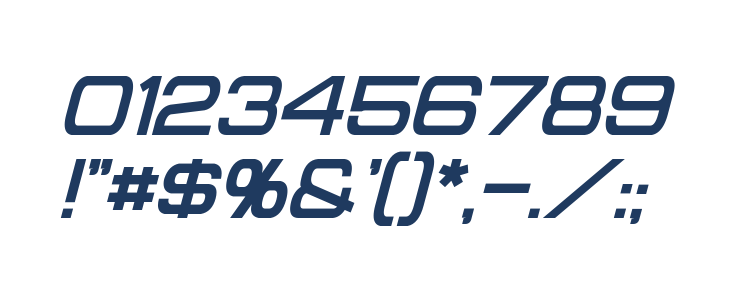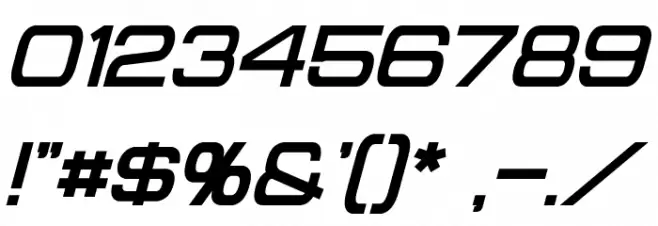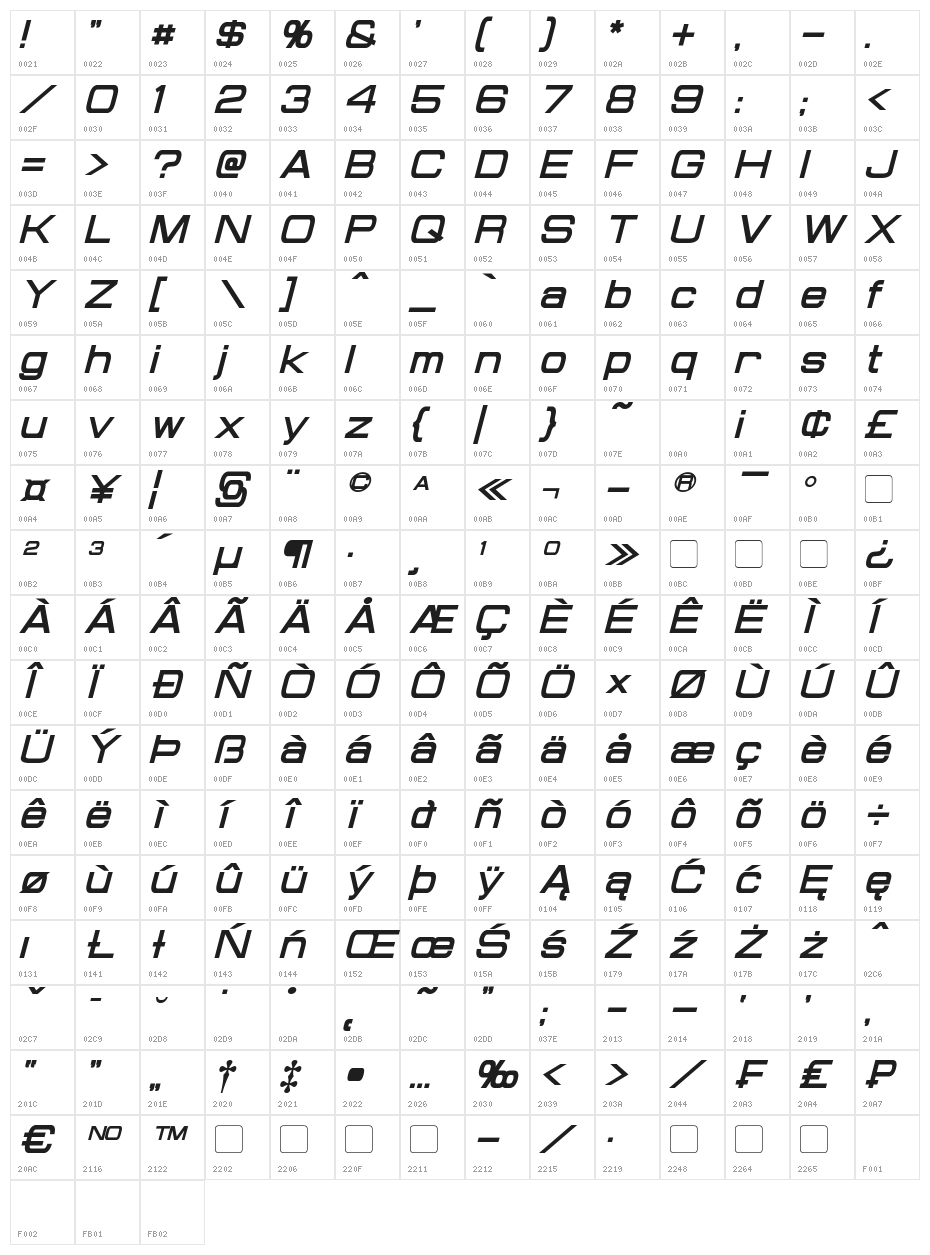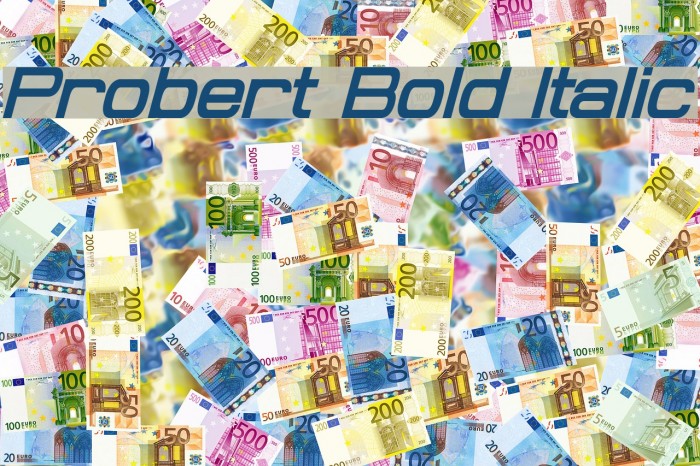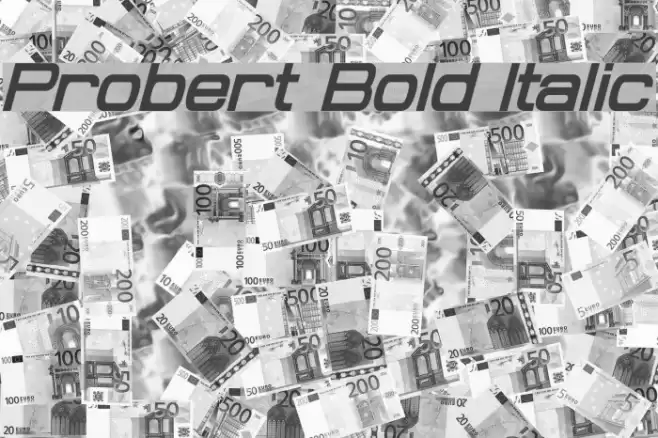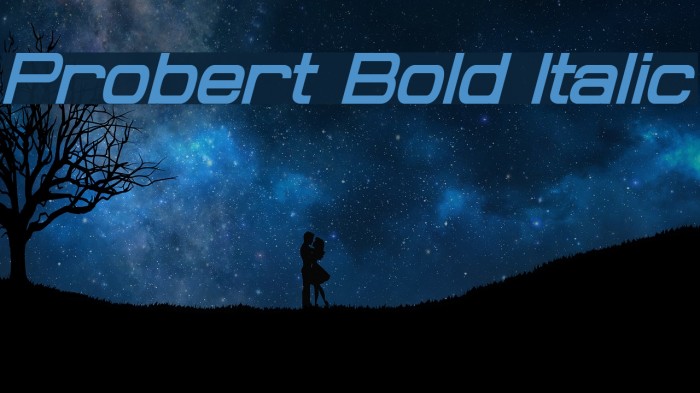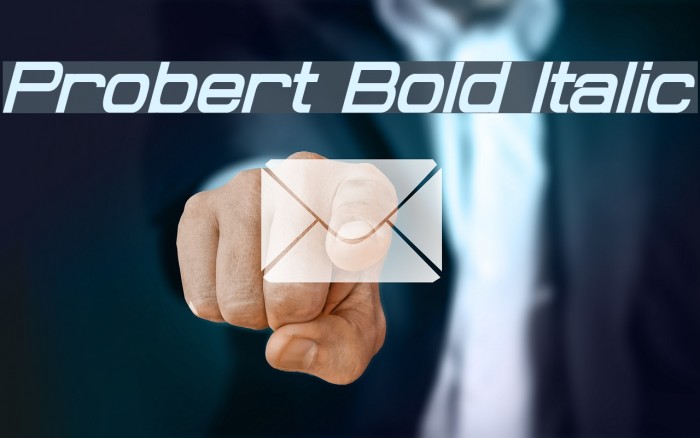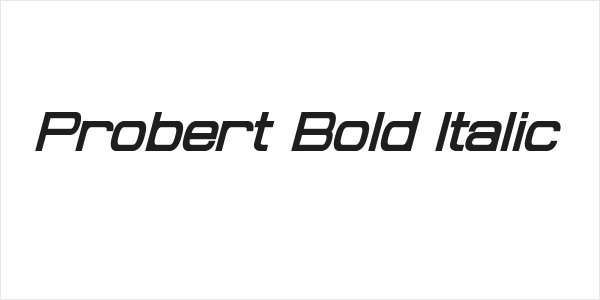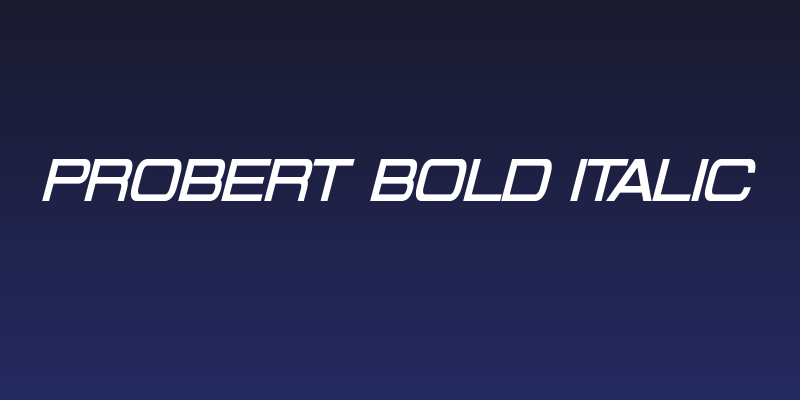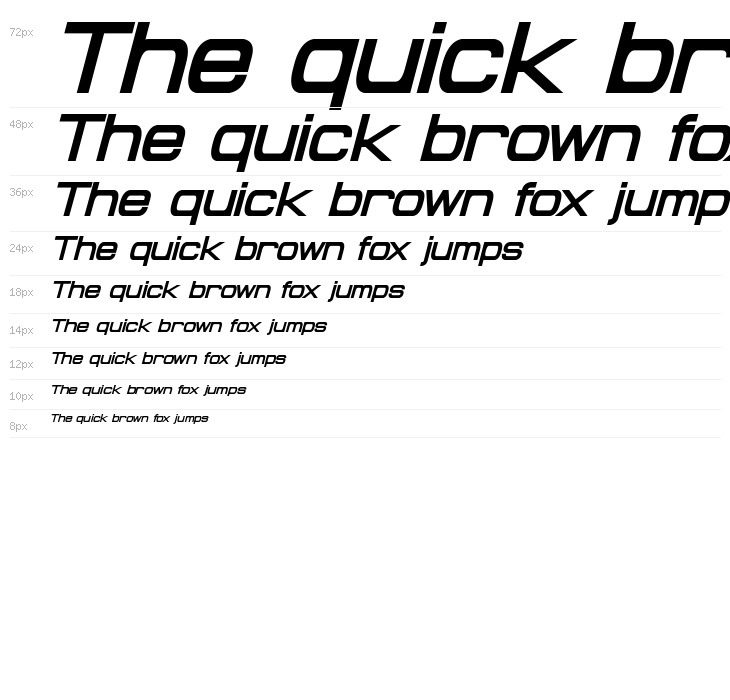
Probert Bold Italic Font
Probert Bold Italic Description
This font exhibits a sleek and modern design with a distinct italic slant, giving it a dynamic and forward-moving appearance. The characters are bold, providing a strong visual impact, and the overall style is clean and streamlined. The uppercase and lowercase letters maintain a consistent style, with smooth curves and sharp edges that enhance readability. The numerals are equally bold and well-defined, making them suitable for various applications. Special characters are included, maintaining the font's cohesive look. The spacing between characters is tight, contributing to its compact and efficient design.
| Use Case | Headlines, Logos, Advertising |
| Proposed Projects | Ideal for branding, advertising, headlines, and digital media projects that require a modern and impactful typeface. |